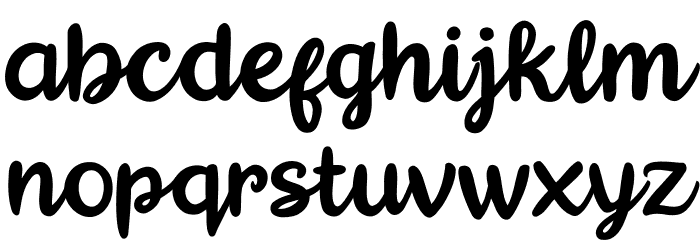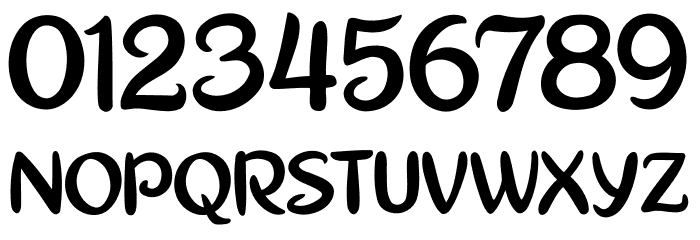
Really Petshop Font
This playful and rounded font features a bold and friendly style, with smooth curves and a consistent stroke width that gives it a lively and approachable appearance. The uppercase and lowercase letters maintain a uniform height, contributing to a cohesive look. The numbers and special characters are designed with the same playful curves, ensuring a harmonious overall design. The font's whimsical nature makes it ideal for projects that require a fun and engaging aesthetic, such as children's books, playful branding, or casual invitations. Its readability and charm make it versatile for both digital and print media.
A playful, rounded font with smooth curves and a friendly style.
- Font: Really Petshop
- Proposed Projects: Ideal for children's books, playful branding, casual invitations, and engaging digital content.
- Overall Style: Playful, Friendly
- Use Case: Headlines, Logos, Invitations